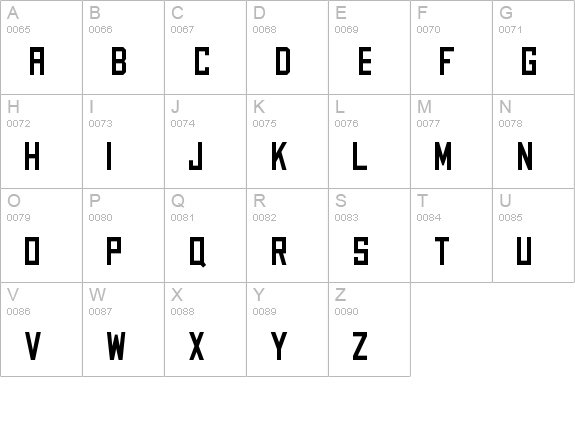
The NBA Milwaukee Bucks 2015 font is a bold and dynamic typeface that perfectly captures the spirit and energy of the Milwaukee Bucks basketball team. Designed with sleek and modern lines, this font exudes confidence and strength, mirroring the team's on-court dominance. With its clean and sharp edges, the NBA Milwaukee Bucks 2015 font is a versatile typeface that can be used in a variety of design projects. Whether you're creating promotional materials for the team, designing merchandise, or even crafting personal projects related to the Bucks, this font will undoubtedly elevate your work to new heights. What sets this font apart is not just its striking aesthetics, but also the fact that it is freely available to download at FontsMarket.com. Yes, that's right, you can now enhance your design projects with the authentic NBA Milwaukee Bucks 2015 font without any cost. It's an incredible opportunity to add a touch of professional flair to your work, without breaking the bank. So, why wait? Head over to FontsMarket.com today and grab your free copy of the NBA Milwaukee Bucks 2015 font. Let this powerful typeface become your secret weapon in creating visually stunning designs that pay homage to the Milwaukee Bucks and their legacy in the NBA. Don't miss out on this amazing chance to incorporate the spirit of the Bucks into your work and make a statement with every letter.